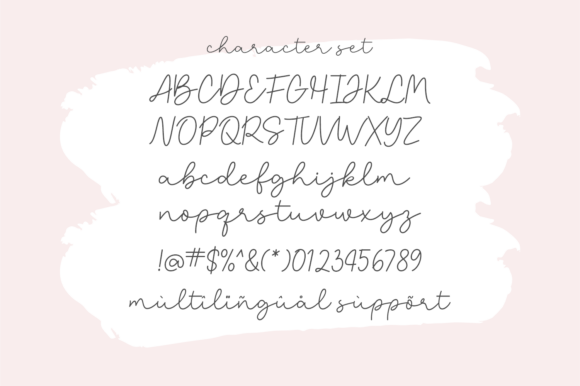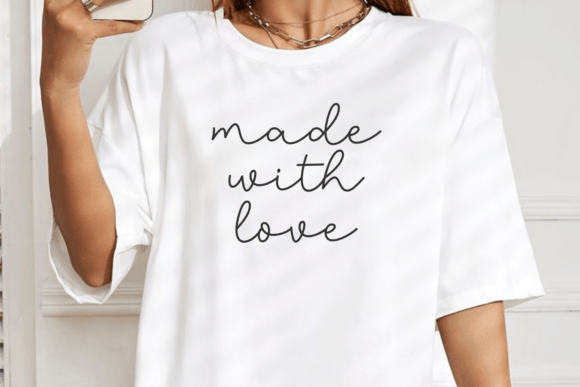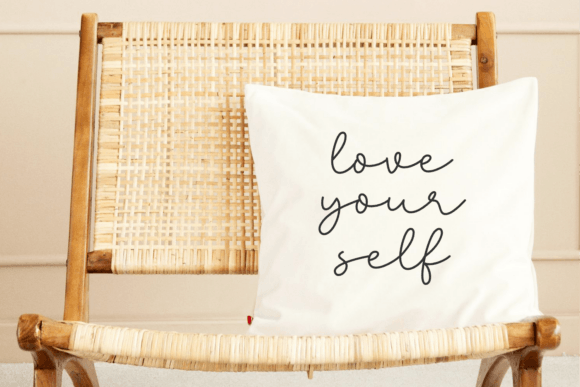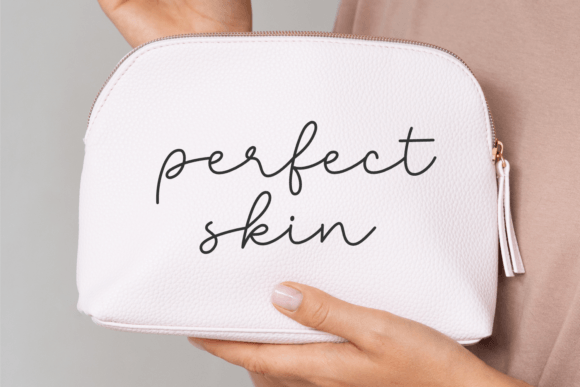
Unlocking the Magic of Handwritten Charm
Have you ever stumbled upon a font that transports you to a world of serenity and elegance? For me, that moment came when I discovered the Blissful Wishes Font. Its delicate, handwritten touch immediately captured my heart, and I knew I had to share it with fellow designers.
Blissful Wishes Font is a signature-style font designed to add a touch of sophistication and approachability to your designs. Whether you’re working on personal branding, wedding stationery, or social media posts, this font is the perfect companion to help you convey heartfelt messages and create lasting impressions.
As a designer, you know how valuable it is to have a versatile font that can elevate your projects without overwhelming them. The Blissful Wishes Font’s minimalistic charm makes it an excellent choice for various uses, from elegant wedding invitations to heartfelt social media posts.
Key Features of Blissful Wishes Font
- Font Family: Blissful Wishes
- Unique Characteristics: Hand-drawn, cursive script with a whimsical and elegant feel, perfect for wedding invitations, greeting cards, and other special occasions.
Blissful Wishes Font Review
As a designer, I was excited to dive into the Blissful Wishes Font and see what it had to offer. Overall, I was pleasantly surprised by its charming and whimsical nature. ✨
- Unique and playful design that’s perfect for adding a touch of magic to your projects.
- The font is highly customizable, with a wide range of options for adjusting size, color, and style.
- The Blissful Wishes Font is highly legible, even at smaller font sizes, making it a great choice for body text.
However, as with any font, there are some limitations to consider. ⚠️
- The font may not be suitable for formal or professional projects, as it has a more casual and playful feel.
- The font is not as robust as some other fonts, and may not hold up well to bold or italic formatting.
Overall, I think the Blissful Wishes Font is a great choice for designers looking to add a touch of whimsy to their projects. While it may not be suitable for all types of projects, it’s a great option for those looking for a unique and playful font. ✨
For the best results, use the Blissful Wishes Font for titles, headings, and short paragraphs.
Avoid using it for large blocks of text, as it may become difficult to read.
Combine the font with other decorative elements, such as illustrations or graphics, to create visually appealing designs.
The Blissful Wishes Font is ideal for:
Birthdays and celebration cards
Gift tags and wrapping paper
Scrapbooking and journaling
Comparison: While Blissful Wishes Font is more cursive and ornate, Great Vibes is more modern and streamlined. Use Great Vibes when you want to create a sense of energy and excitement in your designs.
The recommended font size for optimal readability with the Blissful Wishes Font is between 12 and 14 points. However, this may vary depending on the specific design application and intended use.